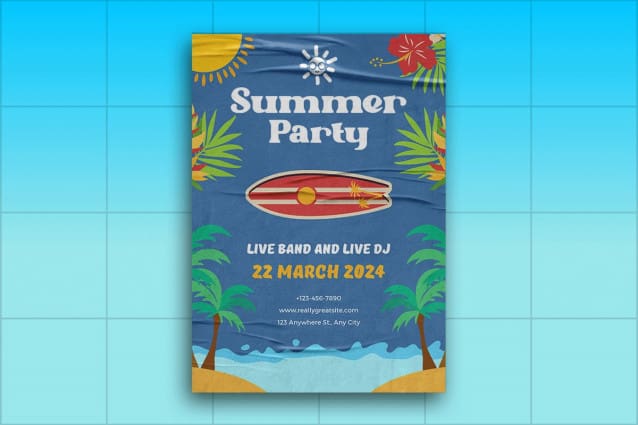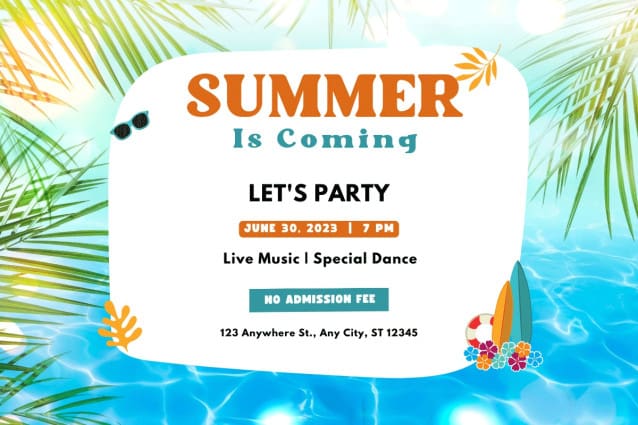
Hello Sun Font
Hello Sun Font – Modern Summer Font is a serif font with a fun vibe and modern design. This font is here to help you create beautiful letter designs.
Hello Sun Font – Modern Summer Font is a modern style font with a simple, unique, and attractive shape. It is straight and curved thicker at the end of each letter. Each letter can be distinguished easily. Hello Sun Modern Summer Font is a legible font that can be seen and understood from a distance. However, this font is not suitable for writing long sentences or blog content, as well as reading books and magazines. It is better for short sentences.
Hello Sun Font – Modern Summer Font is the best font to use for event needs. This font can use on posters, banners, and tickets. Besides that, this font can be used as merchandise such as key chains, stickers, and more. This font can be used as a digital font, such as in product promotion advertisements, music program advertisements, and video intros and outros.
Hello Sun Font – Modern Summer Font is made to give a fun, modern, and simple impression. This impression can change according to the theme and ornaments that follow. It can be lively and colorful when combined with striking ornaments and colors. It still looks great and is very attractive.